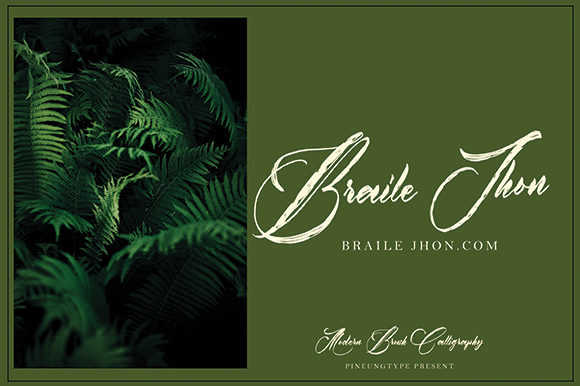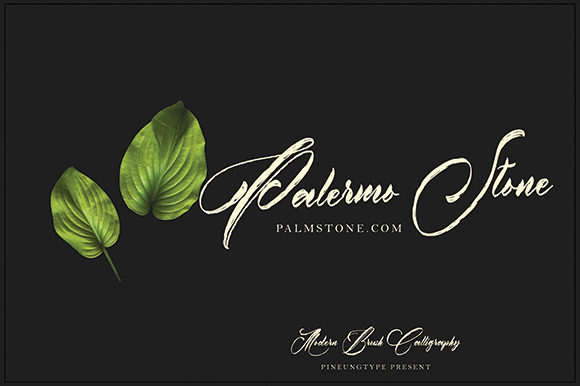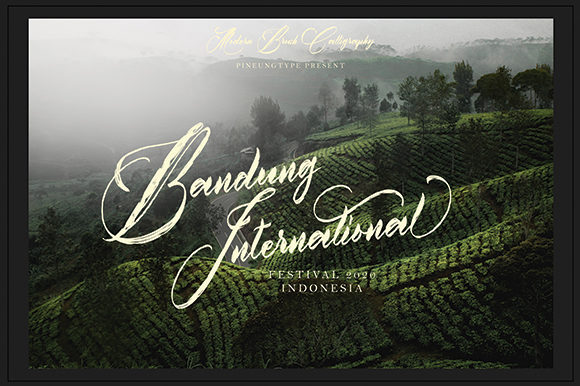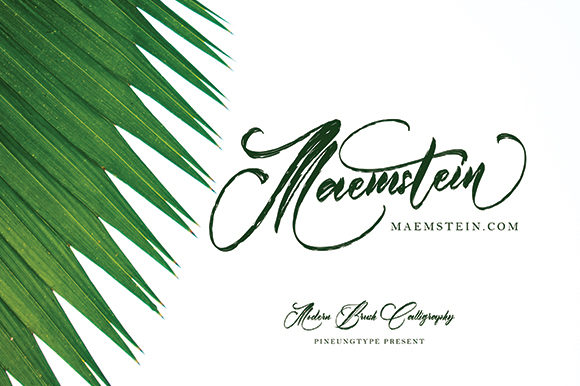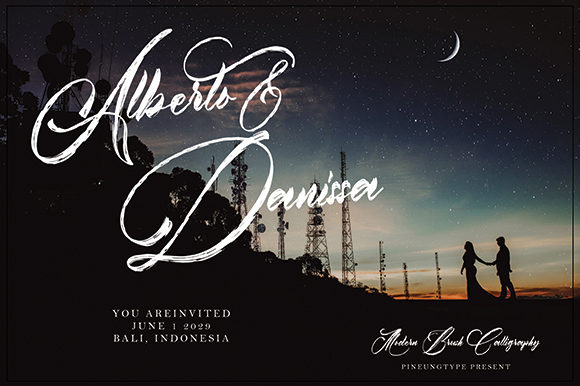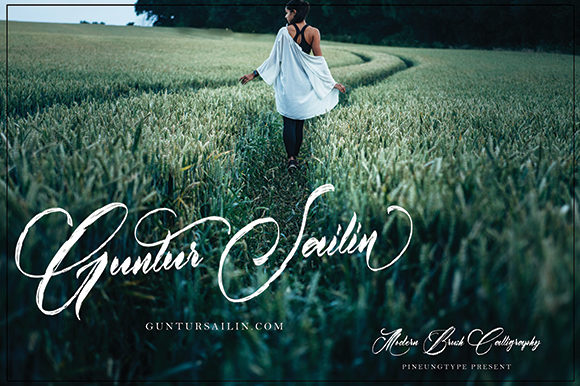
Austin Font: Elevate Your Design with Elegance and Sophistication
Austin is an organic and cute script that feels elegant and sophisticated. Use it to turn any design project into a masterpiece. In the world of typography, fonts play a crucial role in conveying the tone and personality of a brand or design. Among the numerous fonts available, Austin stands out for its unique blend of elegance, sophistication, and playfulness. In this article, we’ll explore the characteristics, uses, and benefits of the Austin font, and how it can elevate your design projects to new heights.
The Characteristics of Austin Font
Austin is a script font that boasts an organic and hand-crafted feel. Its elegant and sophisticated appearance makes it perfect for designs that require a touch of luxury and refinement. The font features:
- Unique letterforms: Each letter in the Austin font has a distinct, hand-crafted look that sets it apart from more traditional fonts.
- Flowing connections: The font’s script style features flowing connections between letters, creating a sense of movement and fluidity.
- High legibility: Despite its ornate appearance, the Austin font remains highly legible, making it suitable for use in a variety of design applications.
Uses of Austin Font
The versatility of the Austin font makes it suitable for a wide range of design projects, including:
- Branding and logos: Use Austin to create a sophisticated and elegant brand identity that stands out from the competition.
- Wedding and event invitations: The font’s romantic and luxurious feel makes it perfect for wedding invitations, save-the-date cards, and other event materials.
- Packaging design: Add a touch of elegance to your product packaging with the Austin font, ideal for luxury goods and premium products.
- Digital and print media: Use Austin in digital and print media, such as magazines, brochures, and social media graphics, to add a sophisticated touch.
Benefits of Using Austin Font
Incorporating the Austin font into your design projects offers several benefits:
- Instant elegance: The font’s sophisticated appearance instantly elevates your design, making it perfect for high-end brands and luxury products.
- Versatility: Austin’s versatility makes it suitable for a wide range of design applications, from branding and packaging to digital and print media.
- Emotional connection: The font’s organic and hand-crafted feel creates an emotional connection with your audience, making your design more relatable and engaging.
Tips for Using Austin Font Effectively
To get the most out of the Austin font, follow these tips:
- Use it sparingly: Use Austin as an accent font to add a touch of elegance to your design, rather than overusing it.
- Pair it with contrasting fonts: Combine Austin with contrasting fonts to create visual interest and hierarchy in your design.
- Experiment with colors and textures: Play with different colors and textures to enhance the font’s elegance and sophistication.
In conclusion, the Austin font is a versatile and elegant script that can elevate any design project to new heights. Its unique characteristics, versatility, and benefits make it a valuable addition to any designer’s toolkit. By incorporating Austin into your design projects, you’ll be able to create sophisticated, elegant, and engaging designs that leave a lasting impression on your audience.
So why not give Austin a try? With its organic and cute script style, it’s sure to bring a touch of luxury and refinement to your designs. Whether you’re a designer, crafter, or DIY enthusiast, the Austin font is a great choice for anyone looking to add a little elegance to their projects.